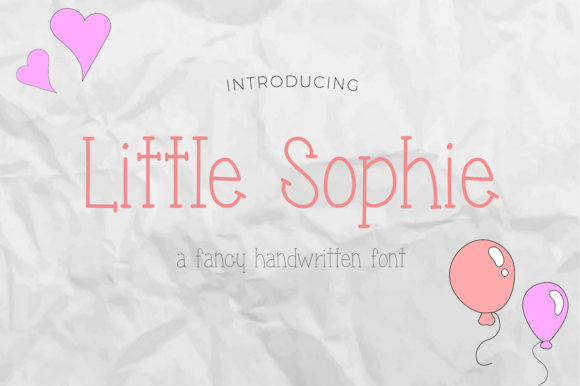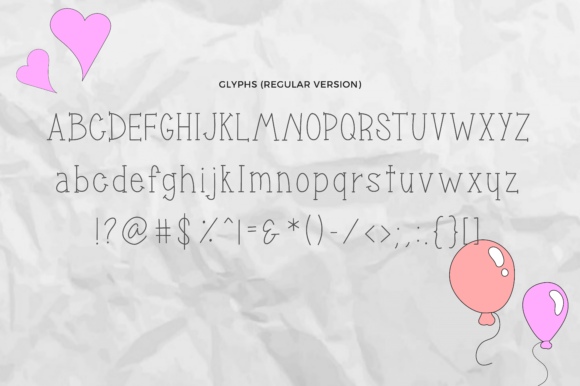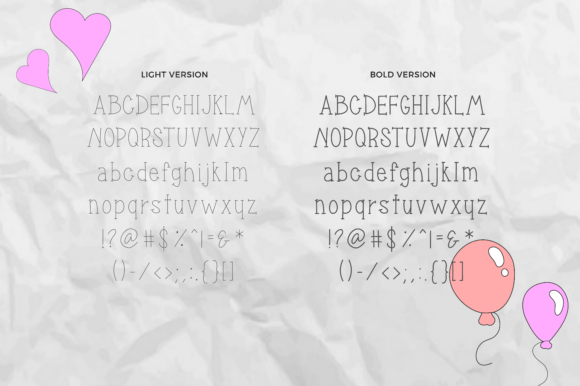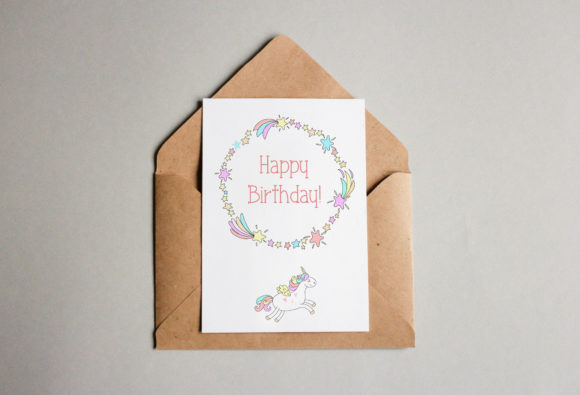
Little Sophie Font
About Little Sophie Font
The Little Sophie is a funny, cheeky, and bold script font. It’s perfect for merchandising, cards, clothing, logos and every other design which needs a playful feel.